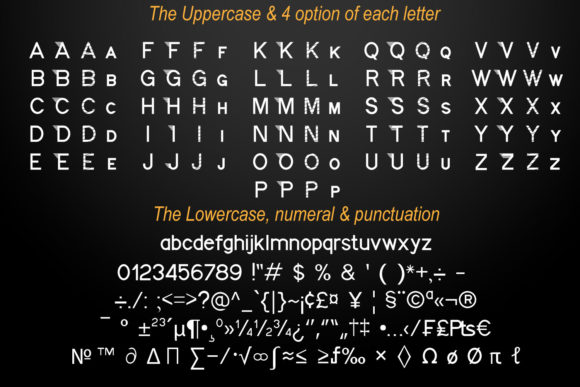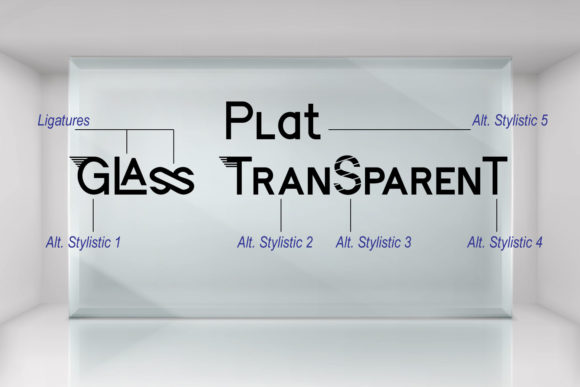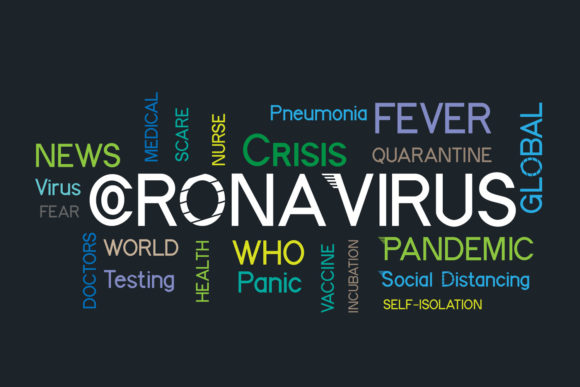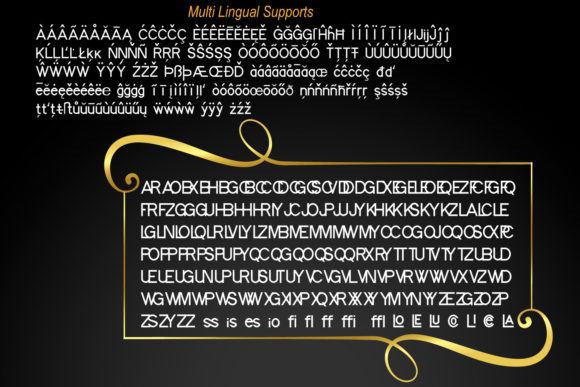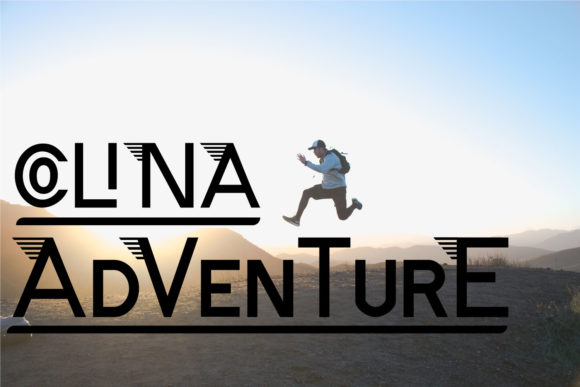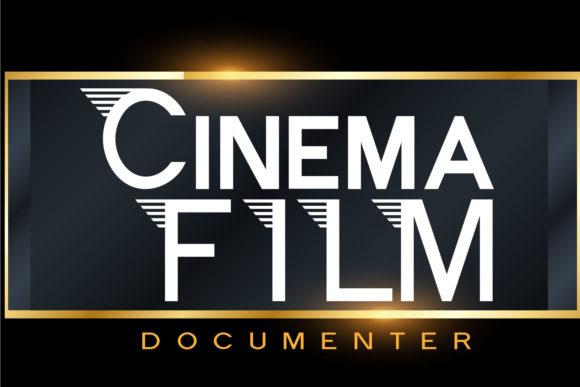
Unleash Your Creativity with Blancos Font
Have you ever stared at a blank canvas, wondering where to begin, and suddenly, a spark of inspiration strikes? That’s exactly what happens when you discover the perfect font – one that elevates your design from ordinary to extraordinary. For designers, finding that perfect font can be a game-changer, and that’s where the Blancos Font comes in.
This cool, modern display font is designed to make a statement on any poster, flyer, or print. Its unique style and versatility make it an invaluable tool for creatives looking to add a touch of sophistication to their work. With the Blancos Font, the possibilities are endless, and its value lies in its ability to help designers stand out in a crowded market.
Whether you’re a seasoned pro or just starting out, the Blancos Font is sure to inspire your next design project.
Blancos Font Key Features
- Font Family: Blancos Font is a sans-serif font family designed for digital use.
- Size: The font family includes multiple weights, ranging from Light (100) to Black (900), with varying x-heights for optimal readability.
- Resolution: Designed for high-resolution displays, Blancos Font is optimized for use on screens with resolutions up to 4K (3840 x 2160 pixels).
- Unique Characteristics: Blancos Font features a clean and modern design with subtle rounded edges, making it suitable for a wide range of digital applications, including user interfaces, digital signage, and mobile apps.
- Character Set: Supports a wide range of languages, including Latin, Cyrillic, Greek, and many others, with over 1,000 glyphs per font weight.
Blancos Font Review
Blancos Font is a clean and modern sans-serif typeface that catches the eye. Here’s a breakdown of its strengths and weaknesses:
- Open and airy feel, perfect for digital displays
- Strong lines and geometric shapes make it great for headings and titles
- High legibility, even at small font sizes
- Works well in both print and digital mediums
- Feels a bit too minimalist for some designs, may lack personality
- Lack of texture and character variation can make it feel cold
- Not ideal for body text, as it can be too light and fragile
Blancos Font is a versatile and modern typeface that shines in its simplicity. While it may not be the best choice for every project, it’s a great option for designs that require a clean and sophisticated look. With its high legibility and open feel, Blancos Font is sure to make a statement in your next design project.
Blancos Font is ideal for:
- Business cards and branding materials
- Formal event invitations and announcements